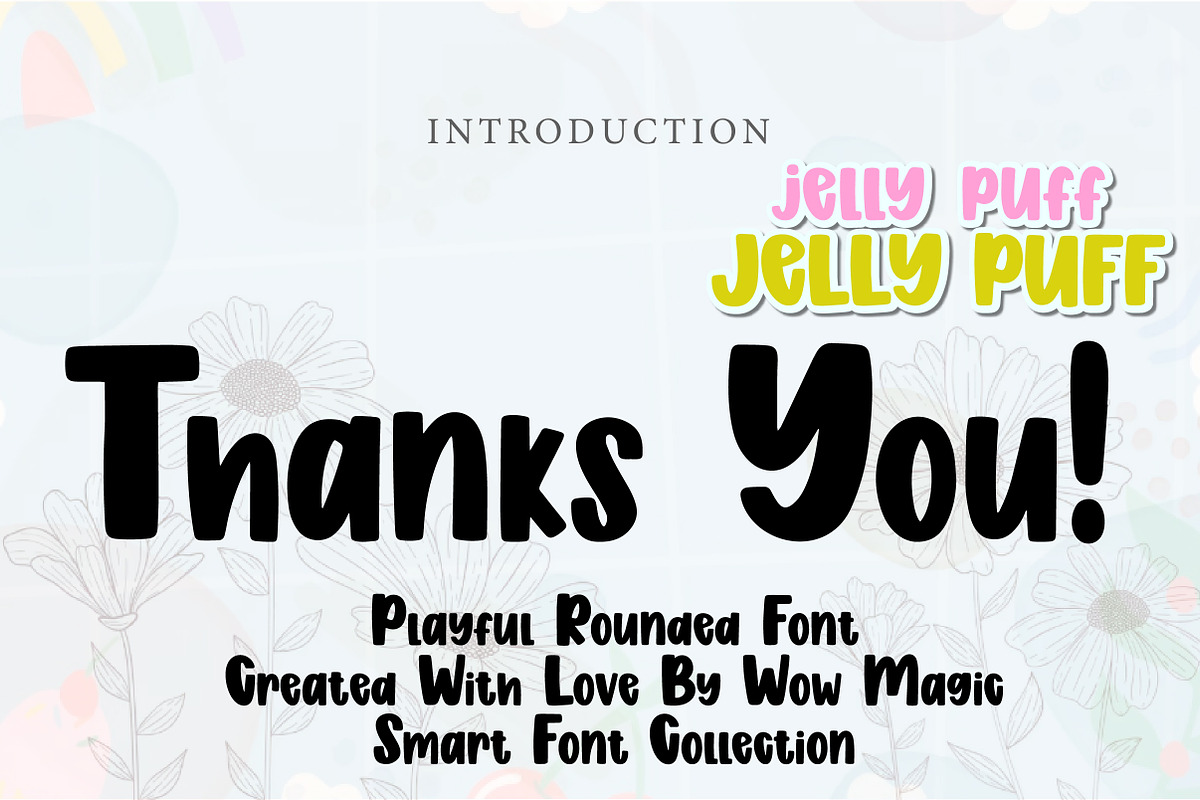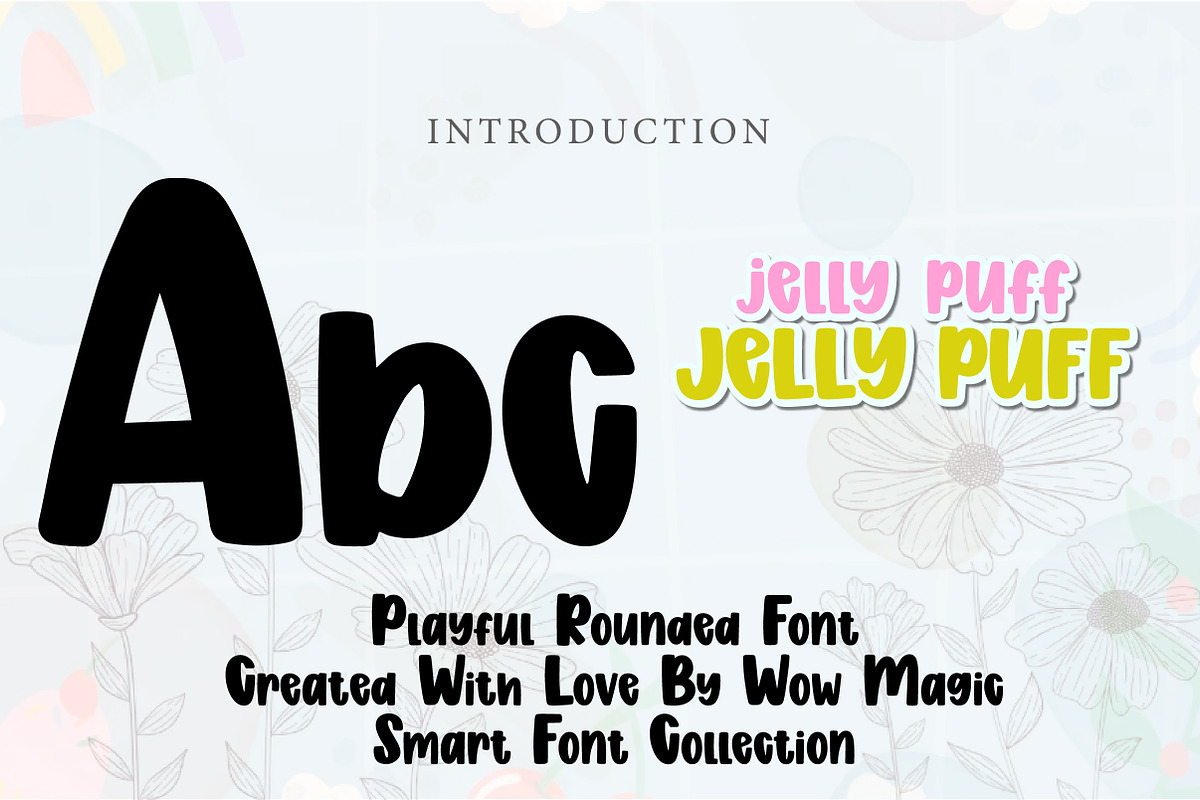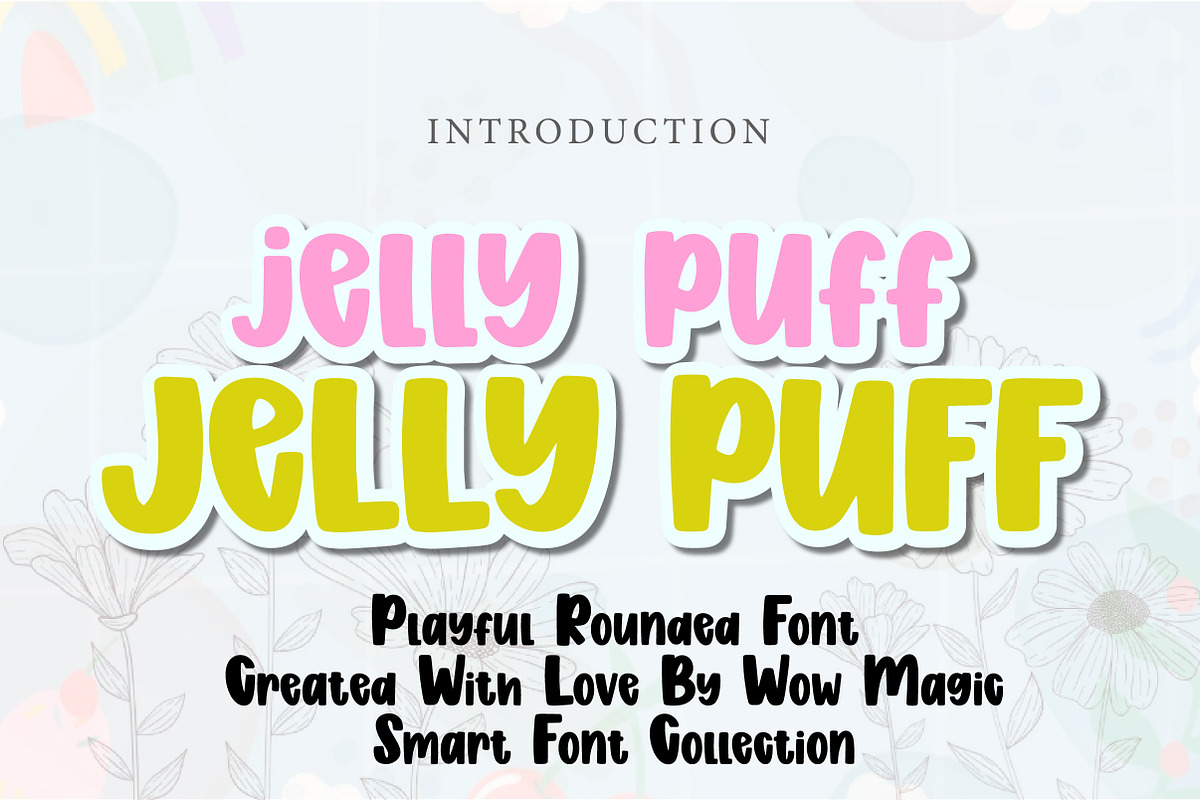
Jelly Puff
Jelly Puff is a soft and playful display font designed with thick rounded shapes and a puffy, hand-drawn style. Its smooth curves and slightly uneven forms create a cute and friendly personality that feels lighthearted, fun, and full of charm.
The bubbly structure gives the font a soft “jelly-like” appearance, making it perfect for kids projects, product packaging, posters, logos, social media graphics, book covers, and playful branding. Its bold weight ensures strong visibility while maintaining a warm and approachable look.
Jelly Puff is ideal for designers who want a font that feels sweet, cheerful, and eye-catching. Whether you’re creating fun branding or creative visual content, this font adds a joyful and cozy vibe to both digital and print designs.